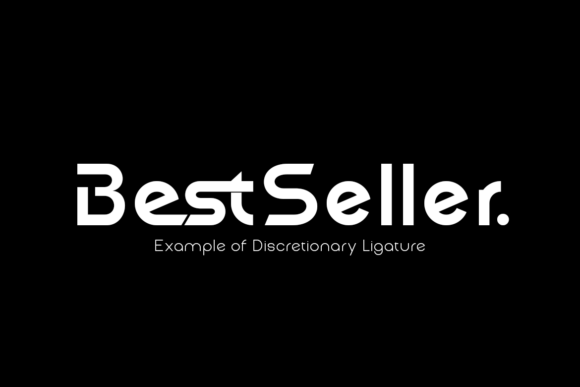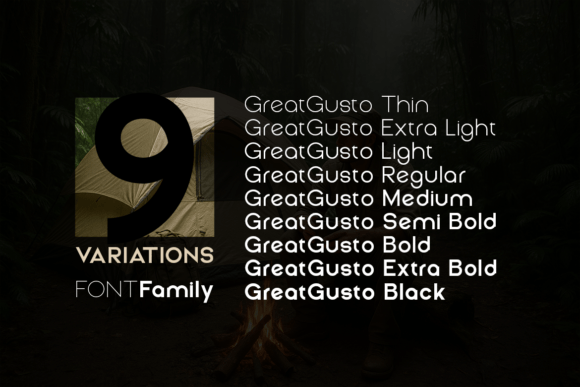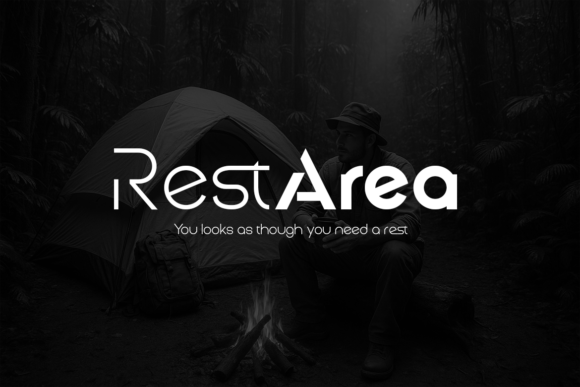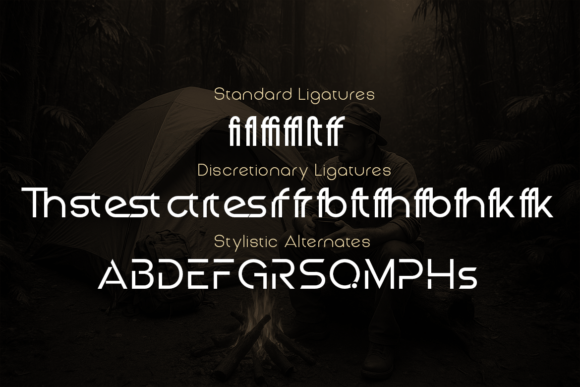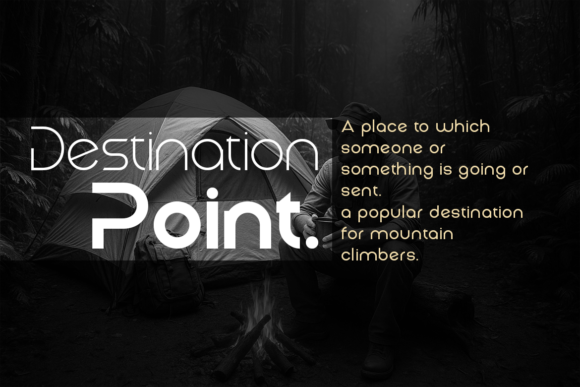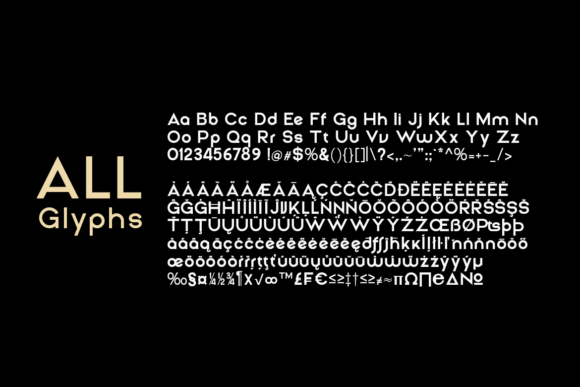
Introducing Great Gusto Font: A New Formal and Elegant Typeface
In the world of typography, a new font has emerged that is making waves with its bold and elegant style. Great Gusto is a sans-serif typeface that is turning heads with its sharp corners and distinctive features. In this article, we’ll take a closer look at Great Gusto, its characteristics, and how it can elevate your design projects.
What is Great Gusto Font?
Great Gusto is a new formal and elegant typeface that is designed to make a statement. Created in a bold style, this font is a variation of the normal style font, with a unique twist. The corners of the glyph characters are sharp, giving it a distinctive look that sets it apart from other fonts. Great Gusto comes in 9 variations, offering a range of options for designers to experiment with.
Key Features of Great Gusto Font
- Sharp Corners: The sharp corners of the glyph characters give Great Gusto its unique and distinctive look.
- 9 Variations: Great Gusto comes in 9 variations, allowing designers to experiment with different weights and styles.
- Sans-Serif: Great Gusto is a sans-serif typeface, making it perfect for use in advertising and display design.
- Elegant and Bold: Great Gusto is designed to be both elegant and bold, making it perfect for headlines, captions, and posters.
Uses of Great Gusto Font
Great Gusto is a versatile font that can be used in a variety of design projects. Here are some ideas for using Great Gusto:
- Logos: Great Gusto’s bold and elegant style makes it perfect for use in logos.
- Magazines: Great Gusto’s clear and legible design makes it perfect for use in magazines and editorial design.
- Films: Great Gusto’s bold and attention-grabbing style makes it perfect for use in film titles and posters.
- Branding: Great Gusto’s elegant and sophisticated style makes it perfect for use in branding and packaging design.
- Headlines and Captions: Great Gusto’s bold and clear design makes it perfect for use in headlines and captions.
Benefits of Using Great Gusto Font
There are several benefits to using Great Gusto in your design projects. Here are a few:
- Clarity: Great Gusto’s sans-serif design makes it clear and legible, even at a distance.
- Elegance: Great Gusto’s elegant and sophisticated style makes it perfect for use in high-end branding and design projects.
- Versatility: Great Gusto comes in 9 variations, making it versatile and adaptable to different design projects.
- Readability: Great Gusto is designed to be highly readable, making it perfect for use in body text and paragraphs.
Why Choose Great Gusto Font?
If you’re looking for a font that is both elegant and bold, Great Gusto is an excellent choice. Here are a few reasons why:
- Unique Design: Great Gusto’s sharp corners and distinctive features make it a unique and stand-out font.
- High-Quality: Great Gusto is a high-quality font that is designed to deliver exceptional results.
- Versatile: Great Gusto comes in 9 variations, making it versatile and adaptable to different design projects.
| Font Name | Great Gusto Font |
| Author | Artisans |
In conclusion, Great Gusto is a new formal and elegant typeface that is making waves in the world of typography. With its sharp corners, distinctive features, and 9 variations, Great Gusto is a versatile font that can be used in a variety of design projects. Whether you’re looking for a font for logos, magazines, films, or branding, Great Gusto is an excellent choice. Its clarity, elegance, and readability make it perfect for use in headlines, captions, paragraphs, and posters.